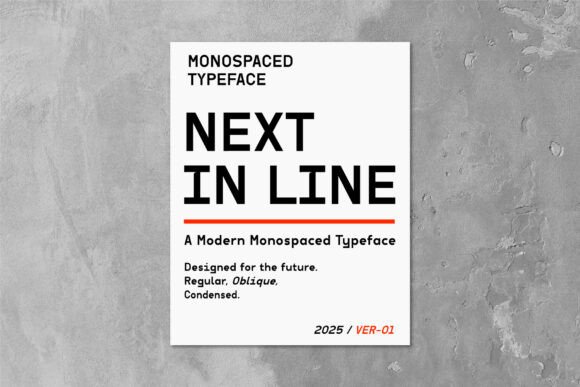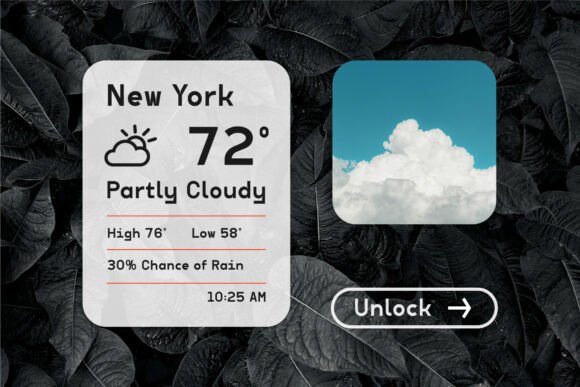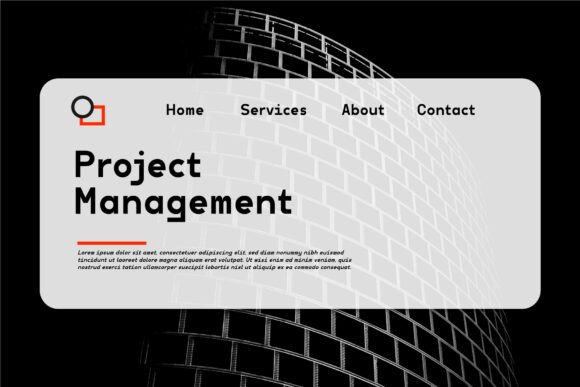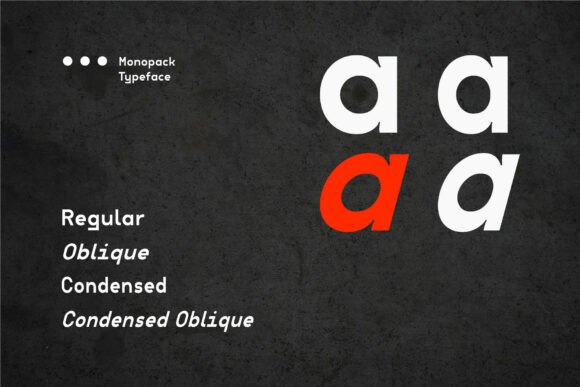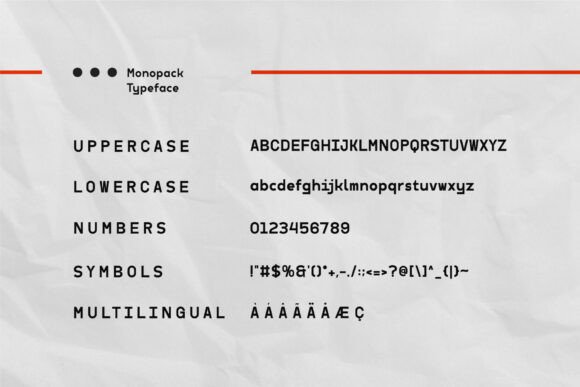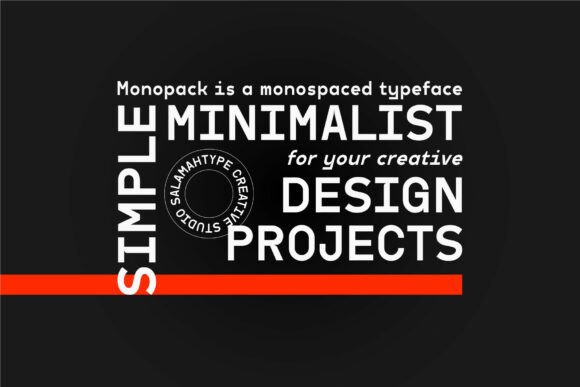
Introduction to Monopack Regular Font
Monopack is a modern monospace font available in four styles: Regular, Oblique, Condensed, and Condensed Oblique.
It features subtle inktraps on select characters, giving it a distinctive and stylish appearance while maintaining clarity and readability Monopack is ideal for titles, logos, user interfaces, and any design that calls for a clean, technical aesthetic.
Key Features of Monopack Regular Font